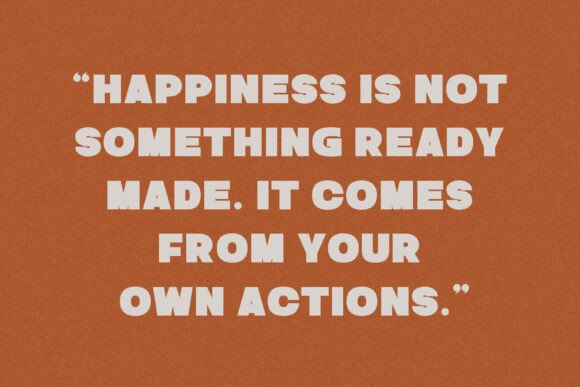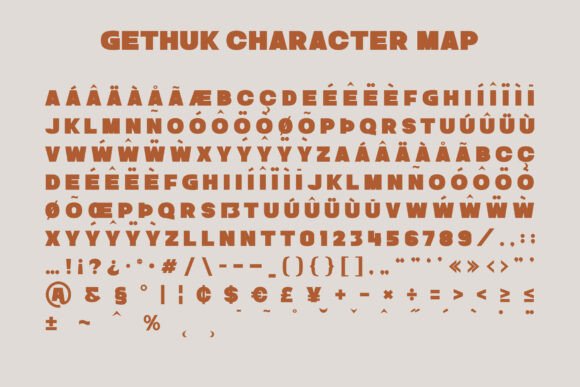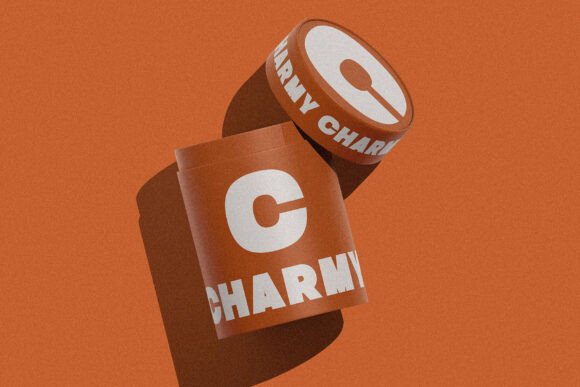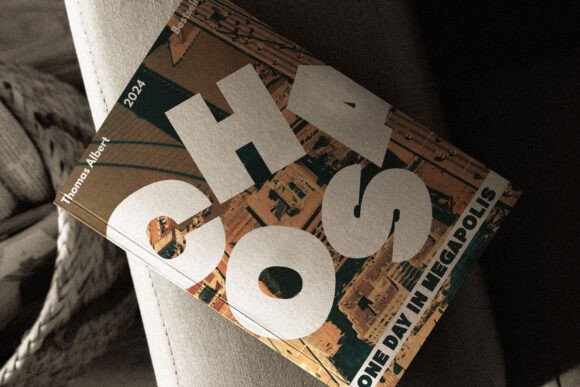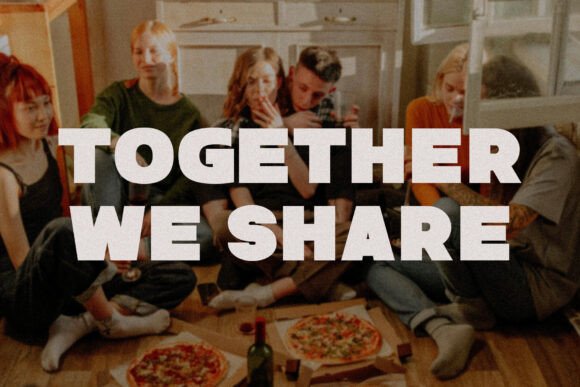
Introducing Gethuk – Modern Bold Sans
I’ll never forget the design project that led me to discover the Gethuk font. I was working on a branding project for a trendy new coffee shop, and I needed a font that would make their logo stand out. After hours of searching, I stumbled upon Gethuk, and it was love at first sight! ✨
Gethuk is a modern and bold font, best used as a display for headings, logos, branding, magazines, product packaging, and invitations. Its sleek lines and confident style make it perfect for designers, crafters, and creative hobbyists looking to add a touch of sophistication to their projects.
- ✨ Bold and eye-catching: Gethuk’s bold style makes it perfect for headlines and titles.
- ✅ Clean and modern design: Its sleek lines and minimal ornamentation give it a fresh and contemporary feel.
- 💡 Highly versatile: Gethuk can be used for a wide range of projects, from logos and branding to magazines and product packaging.
While Gethuk is an excellent font, there are a few things to keep in mind: ⚠️ It may not be the best choice for body text, as its bold style can be overwhelming for longer blocks of text. 🤔 Additionally, some users may find that the font’s boldness can make it difficult to read at smaller sizes.
- Take advantage of Gethuk’s OpenType features, such as glyphs and stylistic alternates, to add visual interest to your text.
Gethuk was designed with the modern designer in mind. Its creator, a talented typographer, wanted to create a font that would be both bold and elegant. The result is a font that’s perfect for designers who want to add a touch of sophistication to their projects.
Q: What is Gethuk font?
A: Gethuk is a modern and bold sans-serif font, best used as a display for headings, logos, branding, magazines, product packaging, and invitations.
Q: Is Gethuk suitable for body text?
A: While Gethuk is an excellent font, it may not be the best choice for body text, as its bold style can be overwhelming for longer blocks of text.
Q: Does Gethuk support OpenType features?
A: Yes, Gethuk supports OpenType features, including glyphs and stylistic alternates, which can be used to add visual interest to your text.